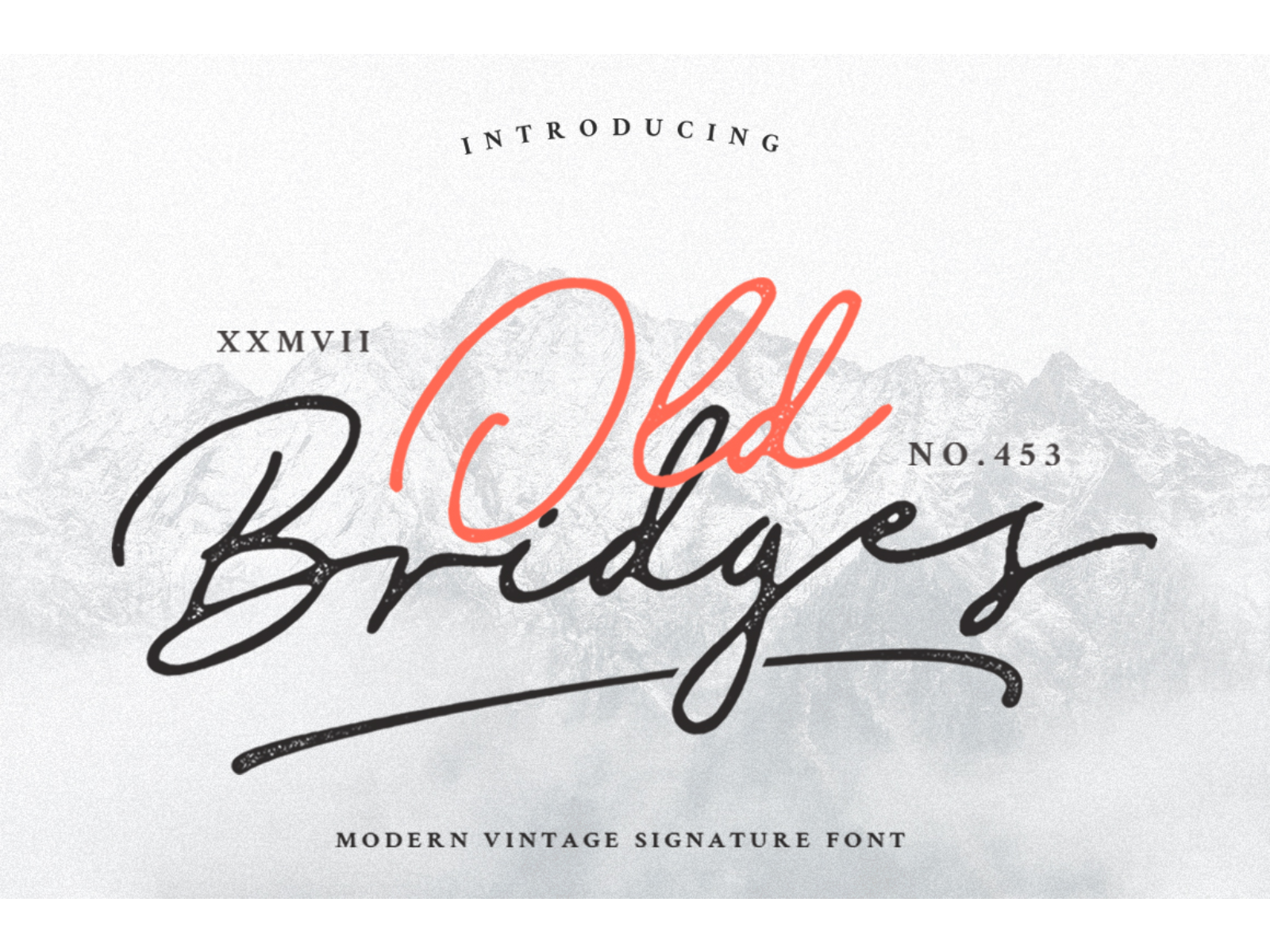
Old Bridges - Vintage Script Font
One of our popular fonts, Old Bridges font Inspired by Modern Vintage & Retro style and combination with old american traditional style.